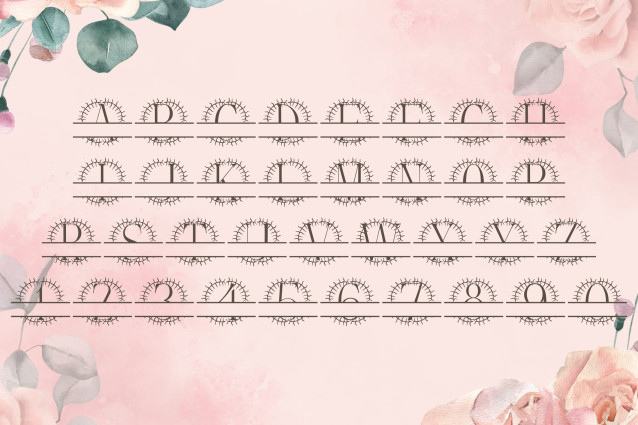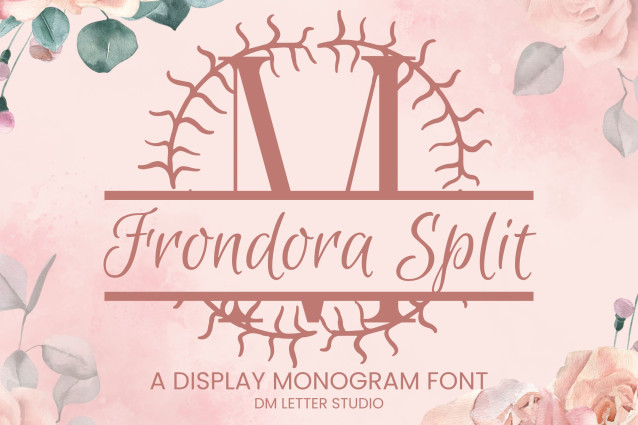
Frondora Split Monogram Font
Frondora Split Monogram Font is a clean and refined serif font with split-letter styling and delicate frond-inspired botanical accents. Designed for elegant personalization, each uppercase letter features a horizontal break—ideal for names, initials, or custom text. Whether you’re crafting wedding signage, branded packaging, or custom gifts, Frondora Split Monogram adds a natural yet polished feel to every design.